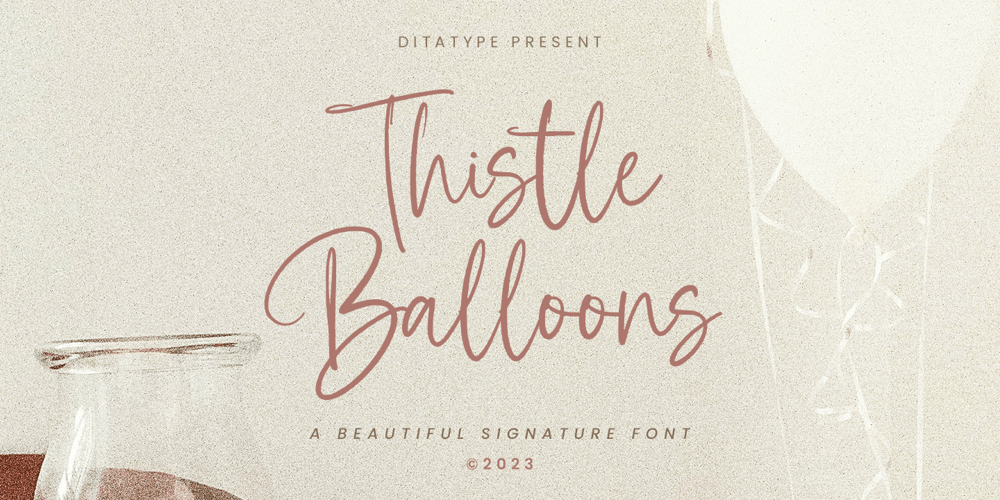
Thistle Balloons Font Family was designed by Donis Miftahudin and published by Ditatype. Thistle Balloons contains 1 styles and family package options. Thistle Balloons is the right script font for natural, casual, personal displays because the letters are in forms of real cursive handwritings connected to each other to create togetherness and continuity nuances. This script font has low letter contrasts to show a more casual, friendlier display and a variety of letter heights. Some letters may look higher than the other ones to make them more interesting and dynamic, and such inconsistent letter sizes can enhance the natural, personal nuances to the font itself. Additionally, it is better to apply this font for big text sizes and you may also enjoy the outstanding features available here.Features: Ligatures Multilingual Supports PUA Encoded Numerals and Punctuations Thistle Balloons fits best for various design projects, such as brandings, quotes, invitations, name cards, greeting cards, printed products, merchandise, social media, etc. Find out more ways to use this font by taking a look at the font preview.Thanks for purchasing our fonts. Hopefully, you have a great time using our font. Feel free to contact us anytime for further information or when you have trouble with the font. Thanks a lot and happy designing.